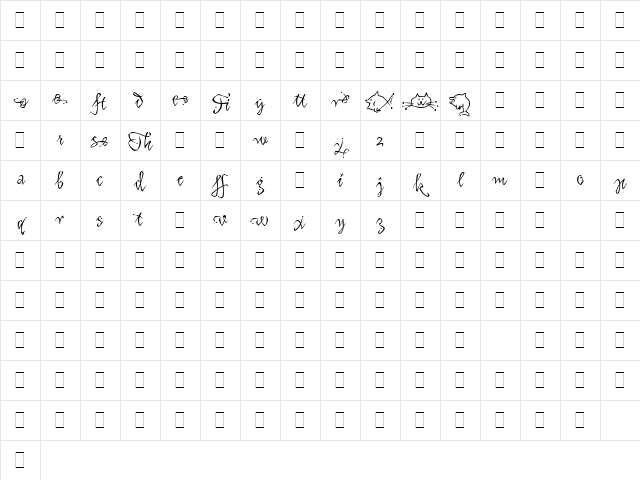
Complete Katfish Alts LET Plain glyph index. Displaying only characters natively supported by Katfish Alts LET Plain font.
Katfish Alts LET is a composed and adaptable typeface that performs quietly and consistently across a wide range of design contexts.